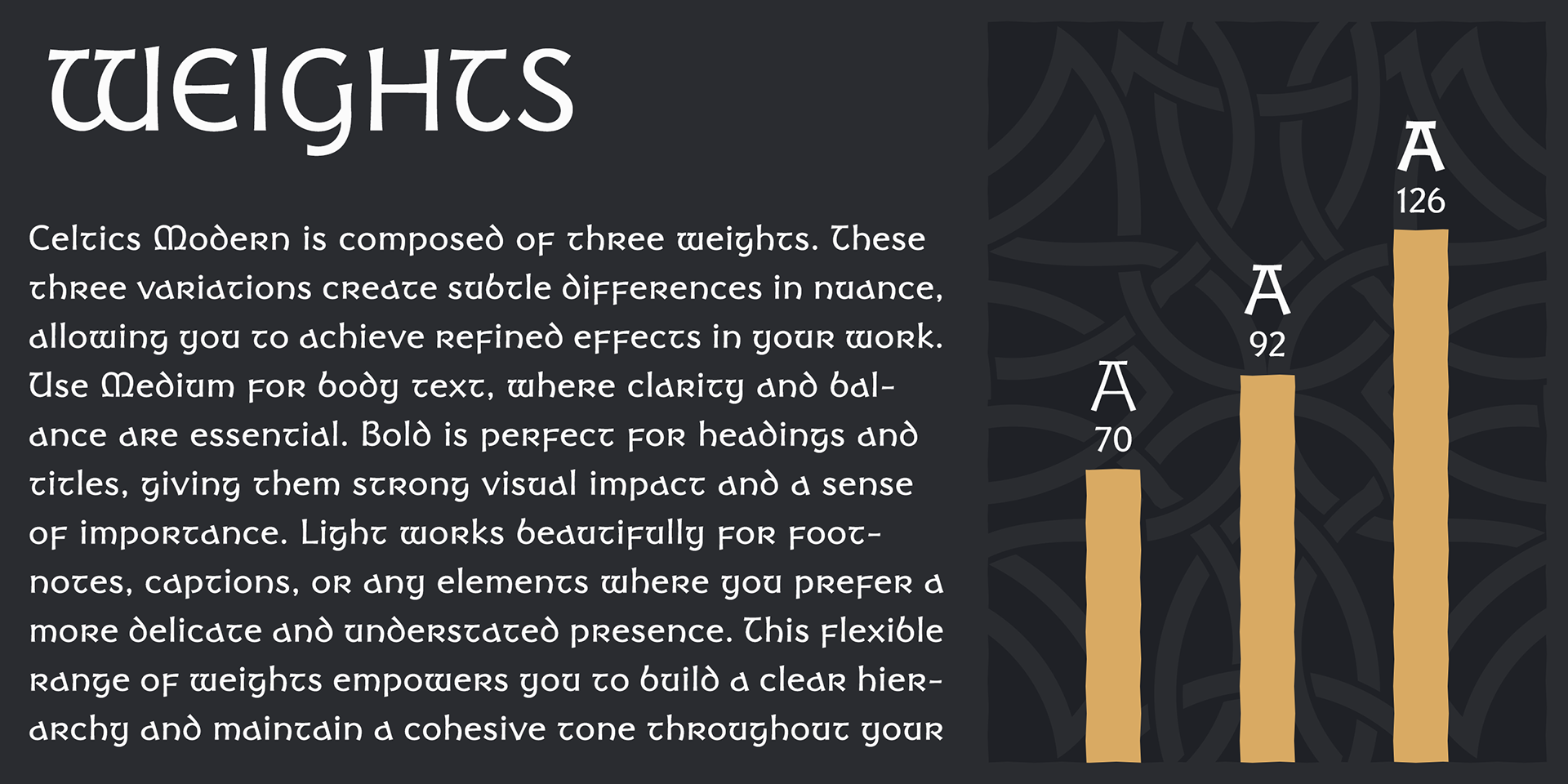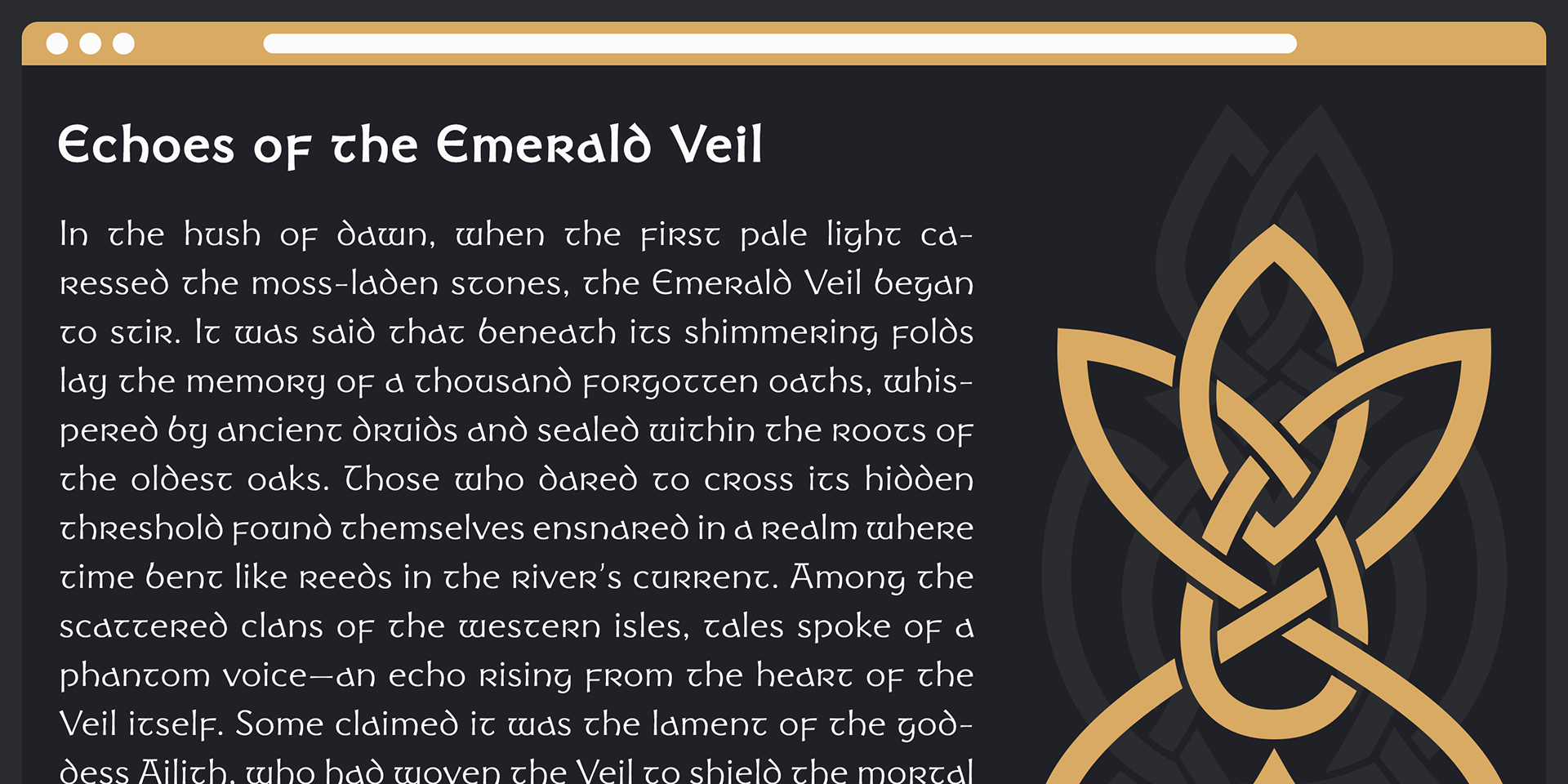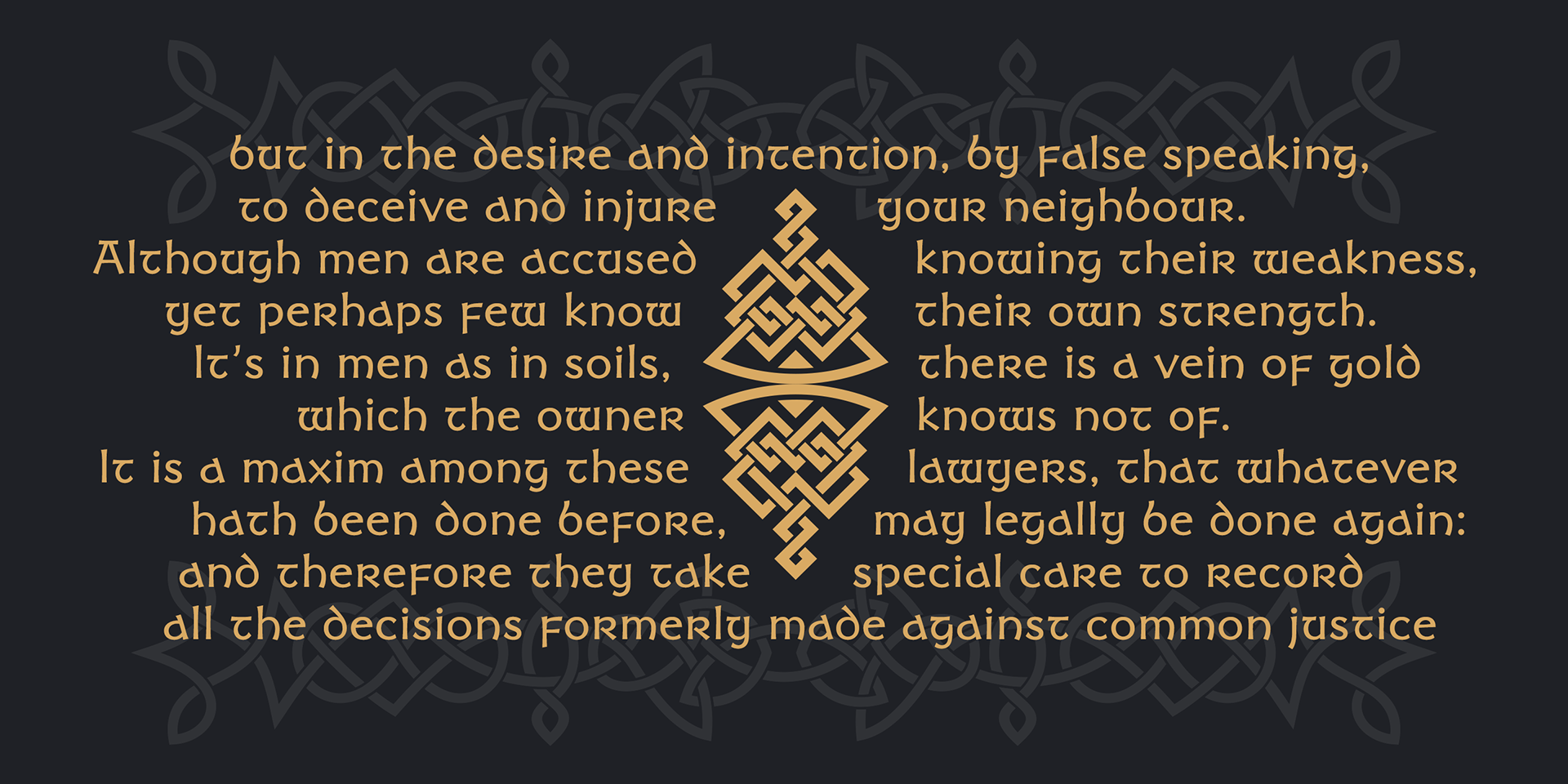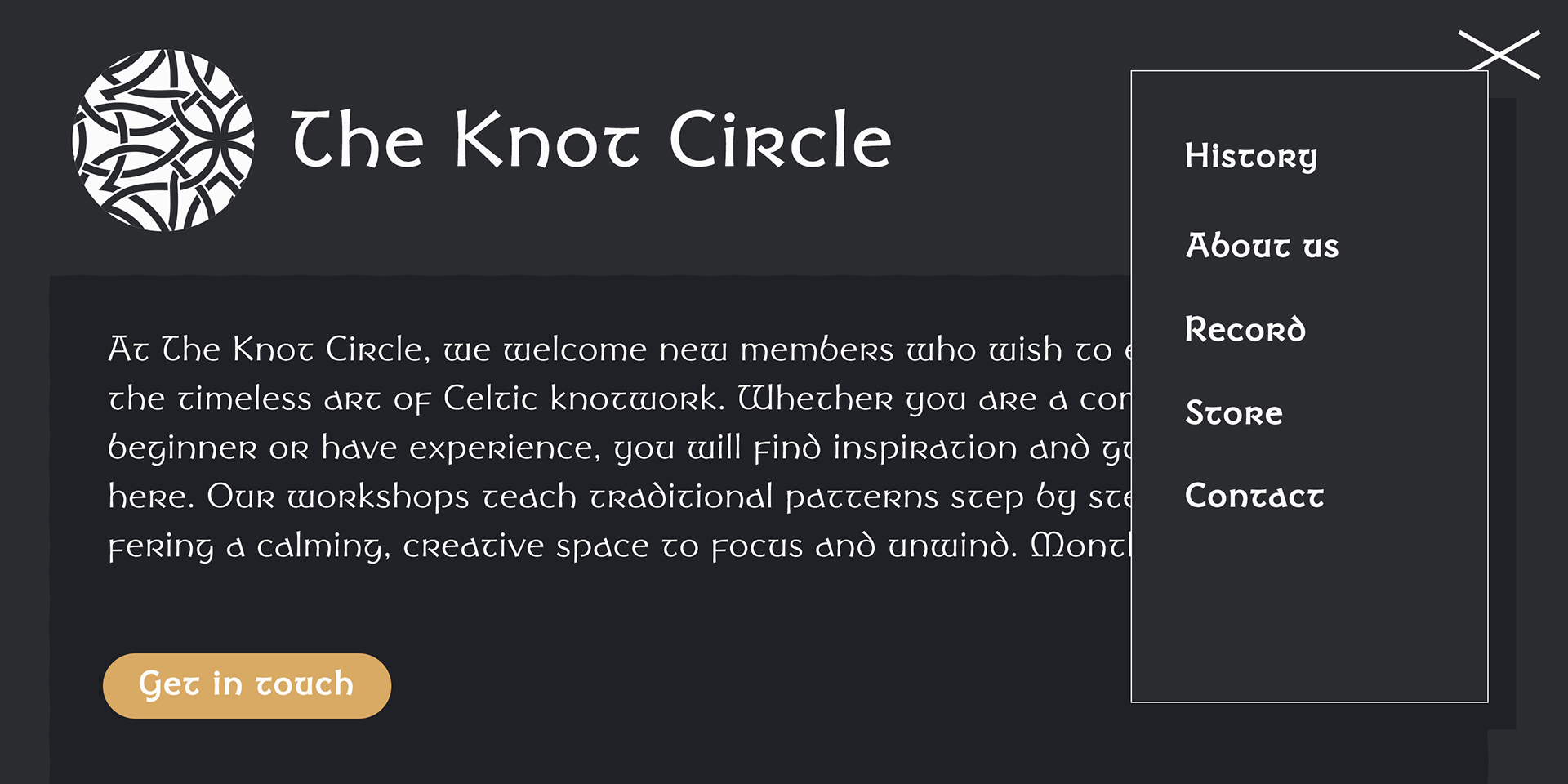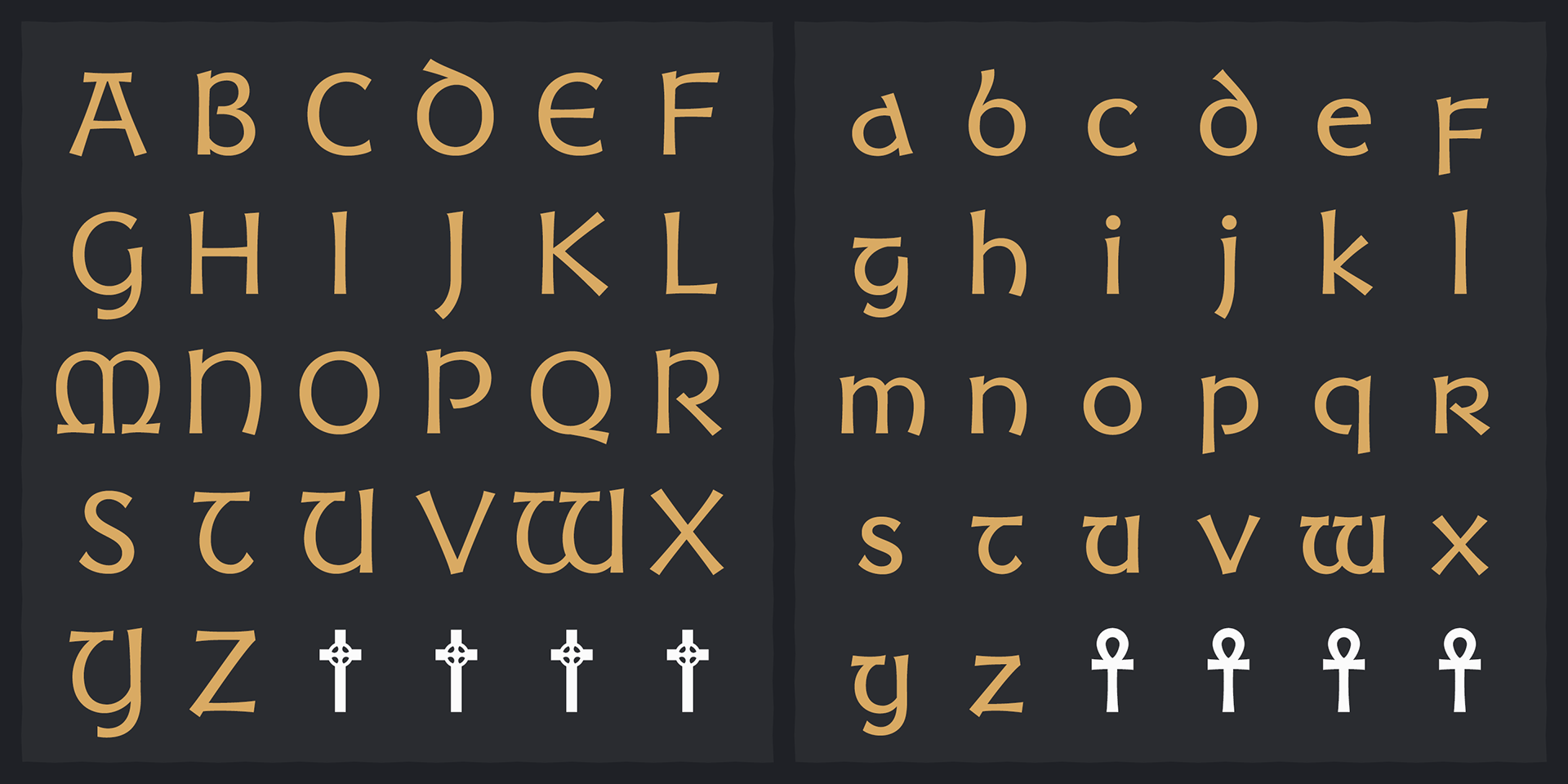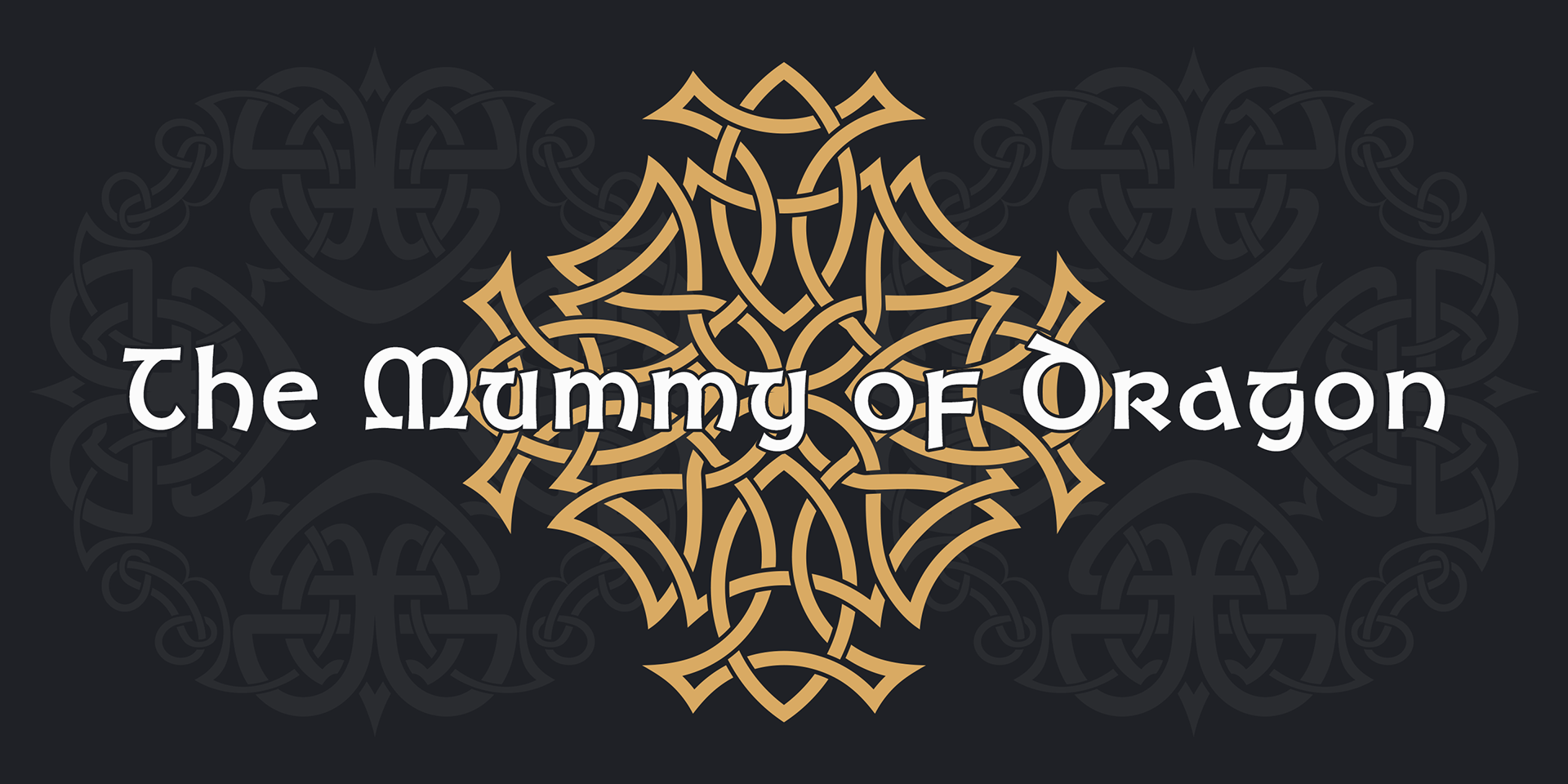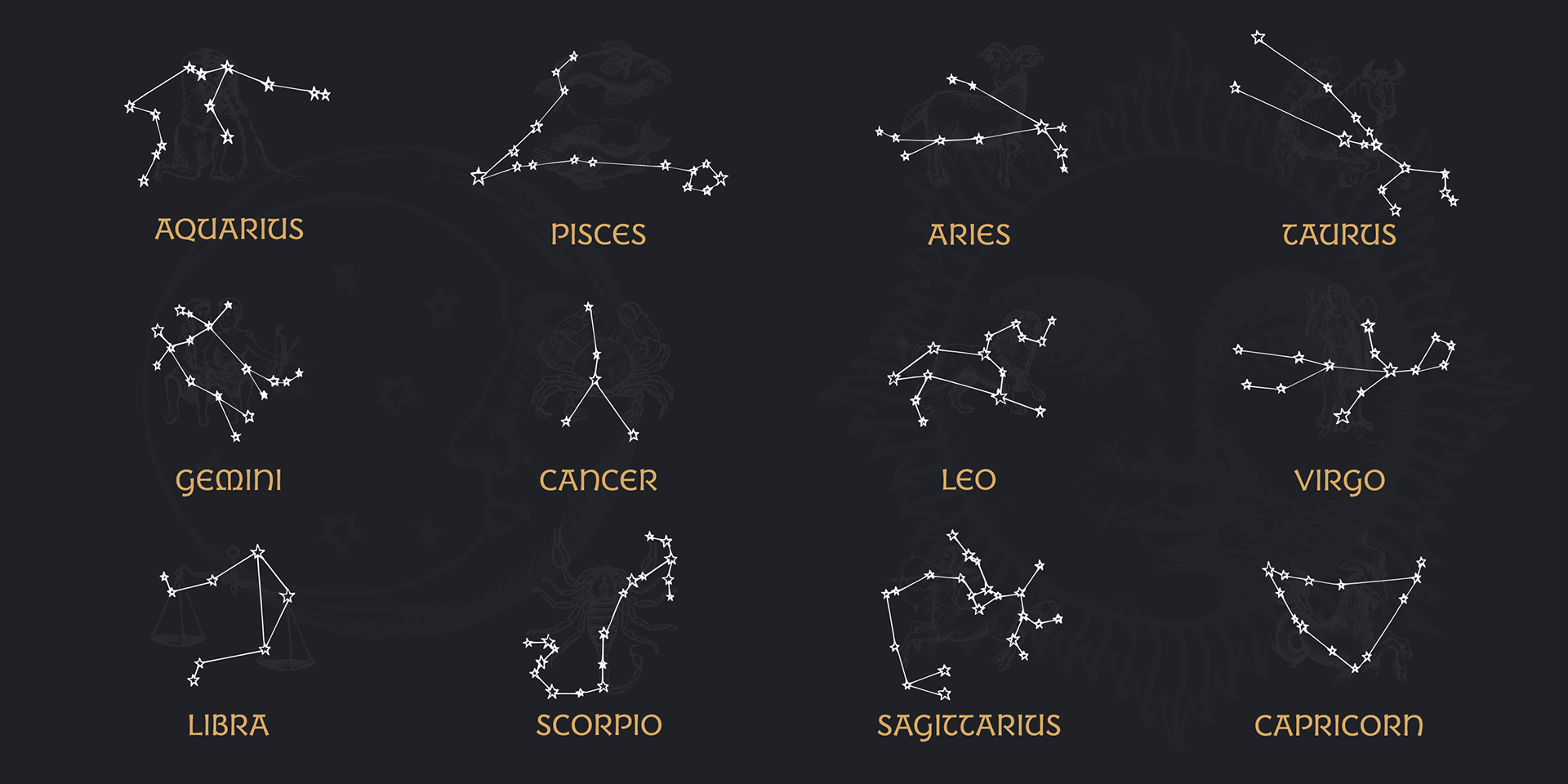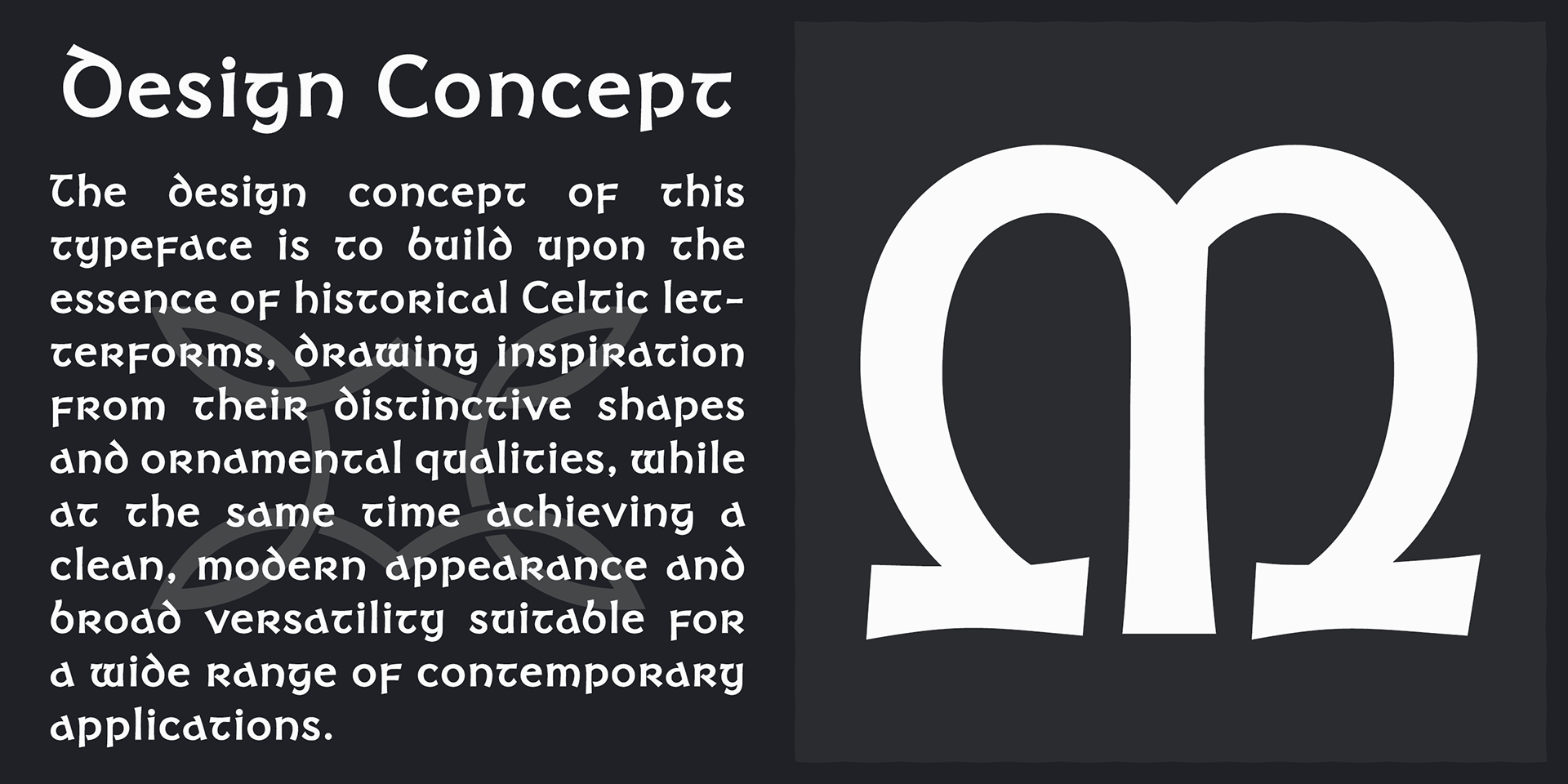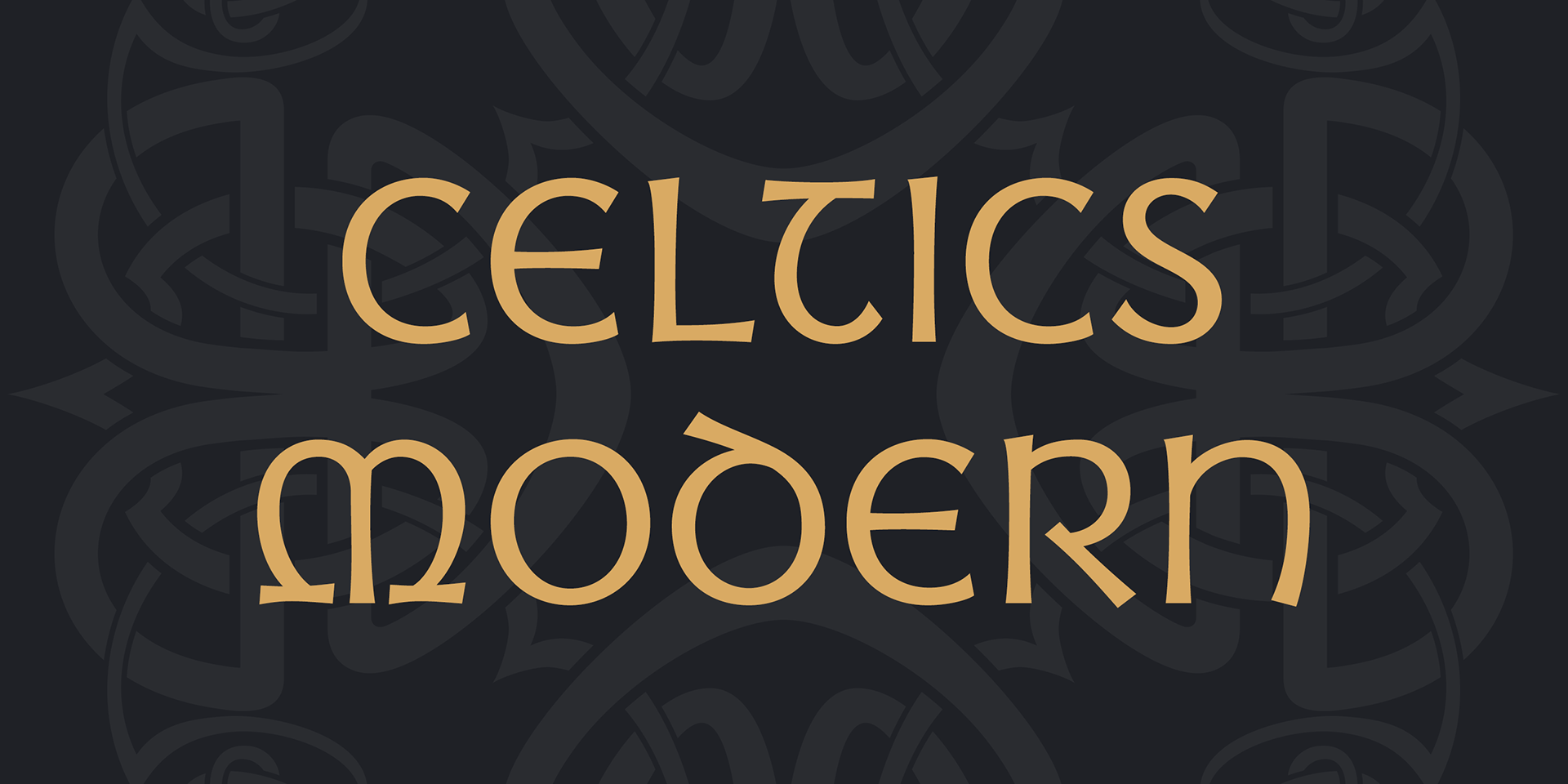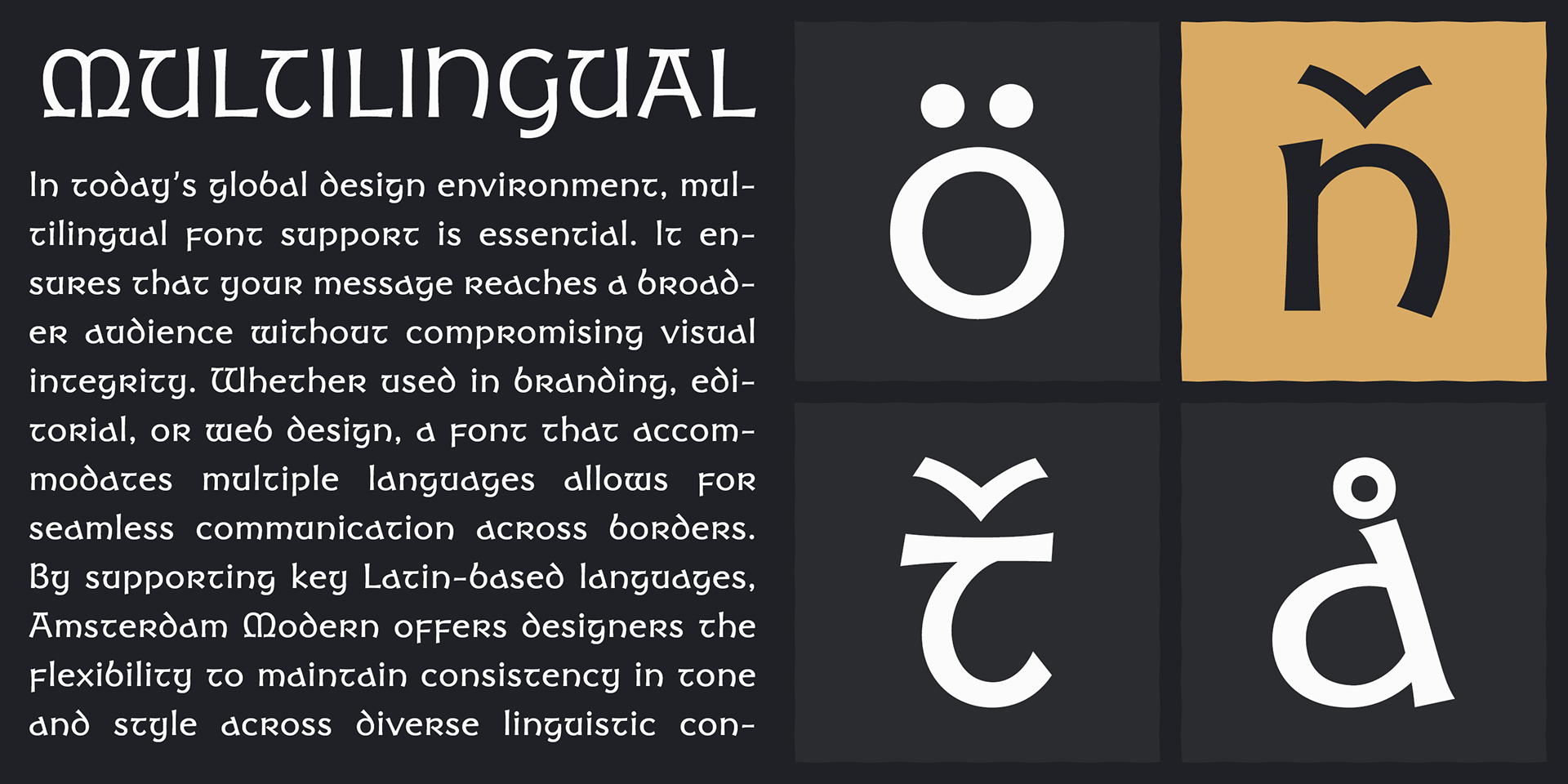
Celtics Modern
Inspired by ancient Celtic lettering—particularly insular half-uncial—this font offers a modern reinterpretation of traditional forms.
While honoring the historic spirit, its handwritten-style glyphs evoke the feeling of ancient script penned by hand, bringing a fresh, contemporary touch to age-old letterforms.